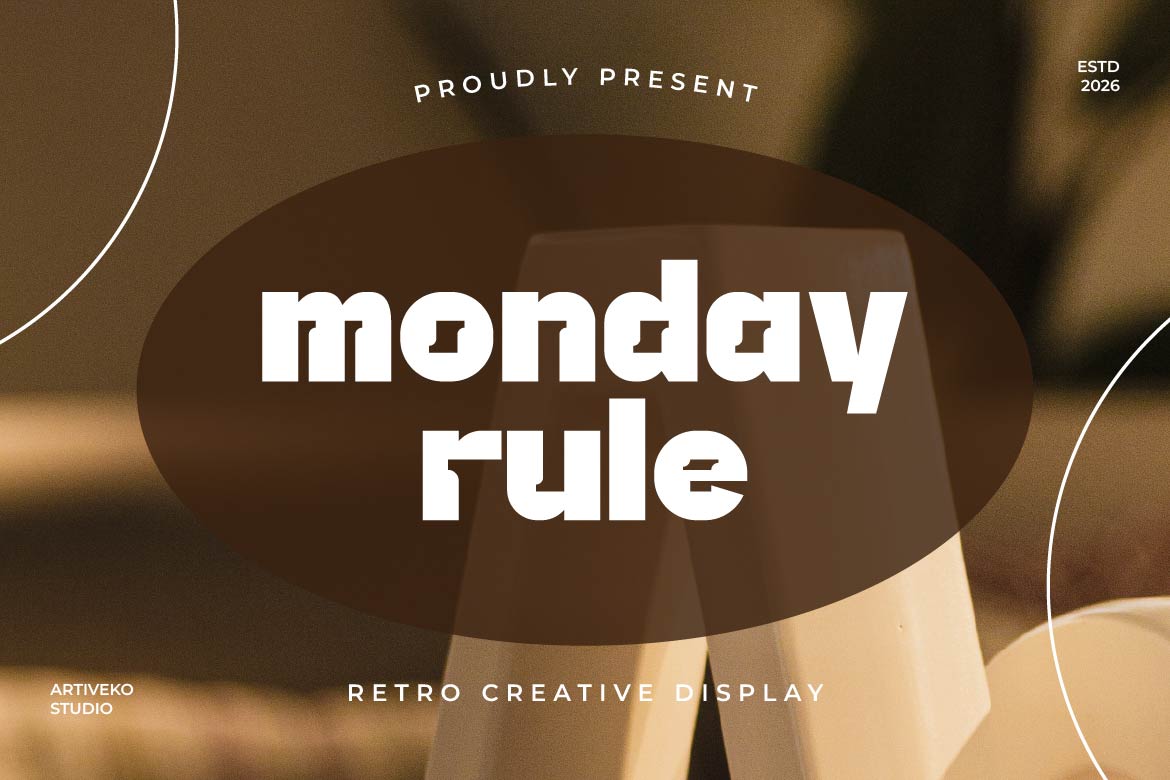
Monday Rule – Retro Creative Display Font
Every great decade has its own visual language—and Monday Rule brings it back with a fresh perspective.
Inspired by vintage advertising, groovy typography, and nostalgic design culture, Monday Rule is a retro creative display font that blends classic charm with contemporary craftsmanship. Its bold silhouettes, expressive curves, and playful rhythm create headlines that instantly evoke warmth, personality, and timeless appeal.
Designed for retro posters, vinyl covers, coffee shops, streetwear brands, craft packaging, music festivals, nostalgic merchandise, YouTube thumbnails, event promotions, and creative editorial layouts, Monday Rule transforms ordinary text into memorable visual statements.
Whether you’re recreating the colorful spirit of the ’70s, building a vintage-inspired brand, or adding character to modern creative projects, Monday Rule delivers authentic retro energy while remaining clean and versatile for today’s designers.
Monday Rule isn’t just a font—it’s a nostalgic journey wrapped in bold typography.